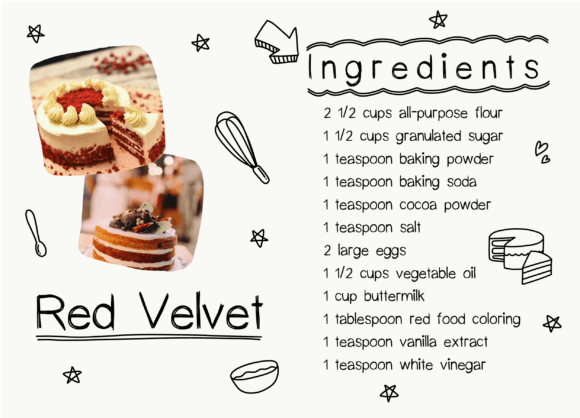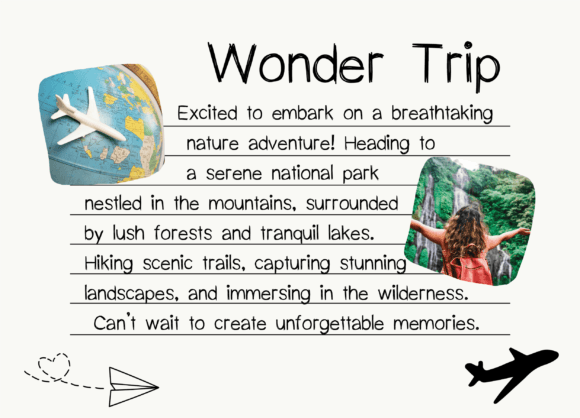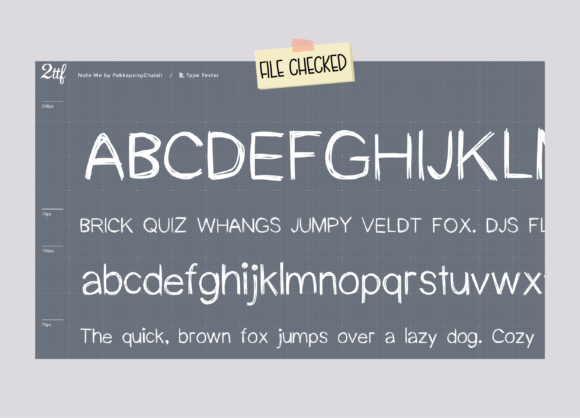
Introduction to Note Me Font Font
Fonts play a crucial role in design, and the Note Me Font font is a typeface that brings both character and versatility to any project. Whether you’re working on a branding project, a website, or a print design, the Note Me Font font offers a unique style that can elevate your work.
A scribble style font in a note-taking theme brings the spontaneous and playful essence of doodling to the world of capturing ideas.
Each letter appears as if quickly sketched with energetic scribbles, capturing a sense of creativity in the moment The font embodies the excitement and freedom of note-taking, reminiscent of jotting down thoughts and inspirations on paper.
Key Features of Note Me Font Font
Why Choose Note Me Font Font?
The Note Me Font font is more than just a typeface – it’s a design tool that helps you communicate your message with style and clarity. Its unique character set and versatile design make it suitable for a wide range of applications, from elegant invitations to bold headlines.
With its carefully crafted letterforms and balanced proportions, the Note Me Font font ensures readability and visual appeal across all mediums.
What makes Note Me Font font special?
The Note Me Font font stands out with its unique design, exceptional readability, and versatility across various design applications.